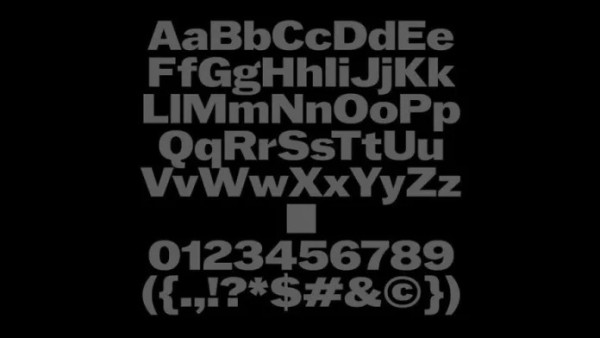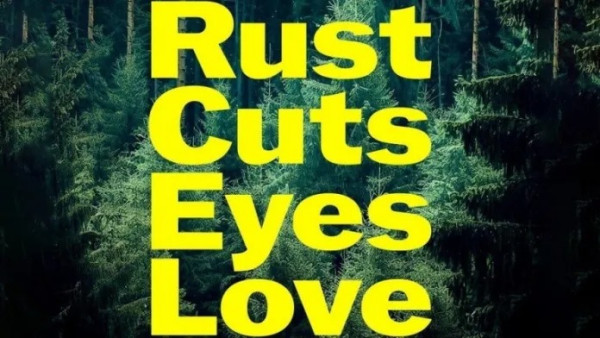
Murs Gothic Font
Murs Gothic Font by  Maksym Kobuzan ,it is a bold, chunky italic that oozes strength and fierceness. It is a collective image of American gothics of the early 20th century. It has wide proportions, tight letter spacing, and increased contrast. Somewhere elongated, as well as asymmetric details give it a characteristic emotionality and playfulness.
The set comes with 692 glyphs. Among which are Latin and Cyrillic characters, a couple of ligatures, alternatives, geometric symbols, arrows and much more!